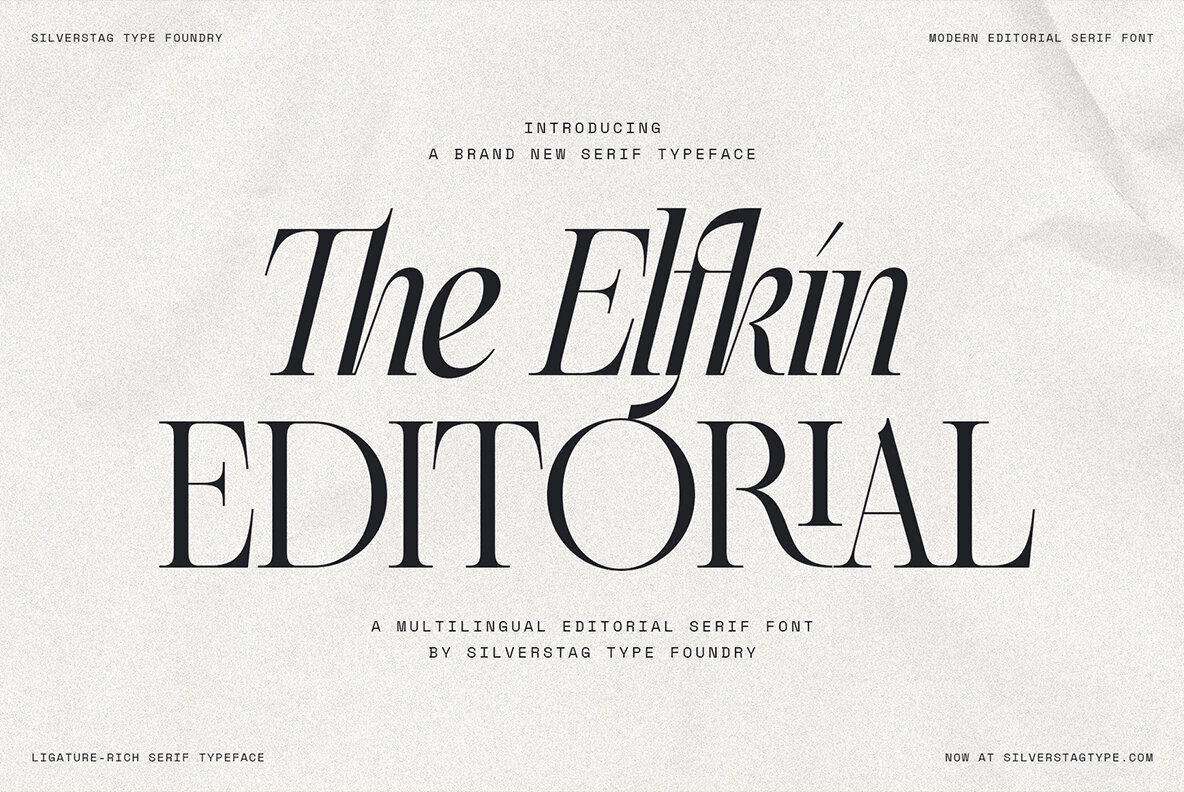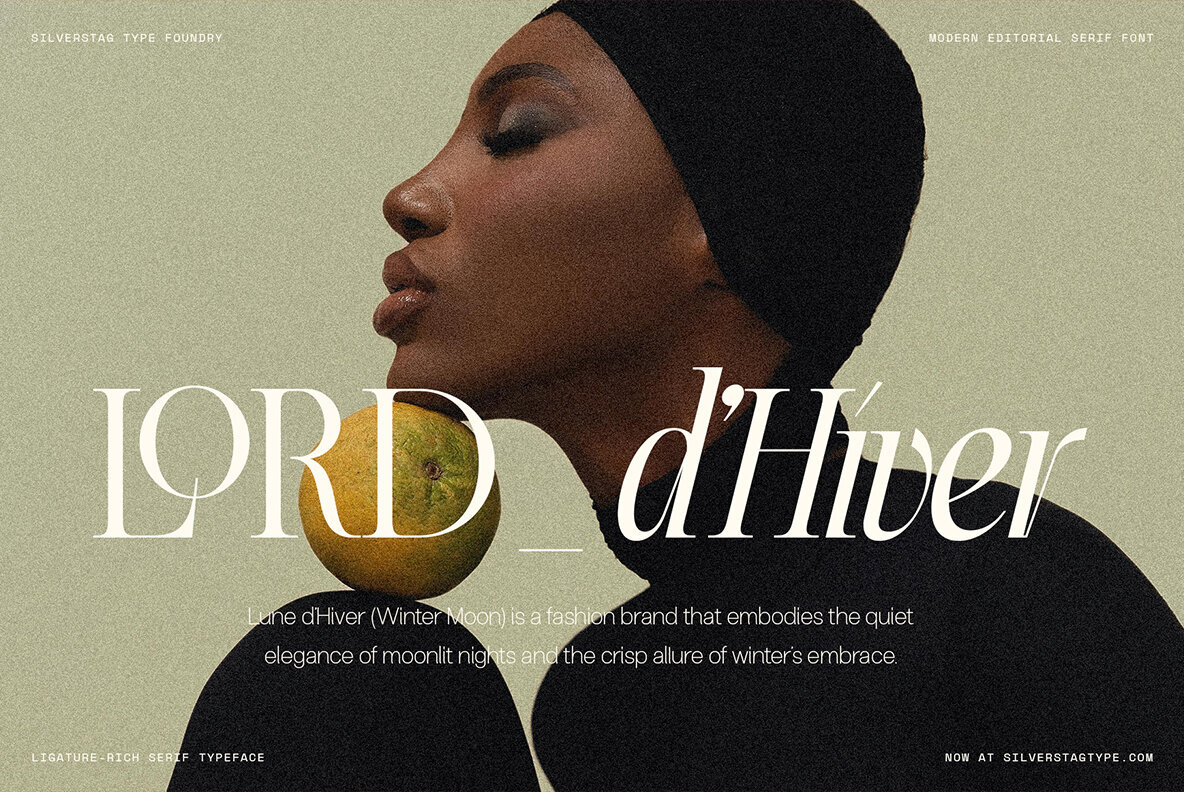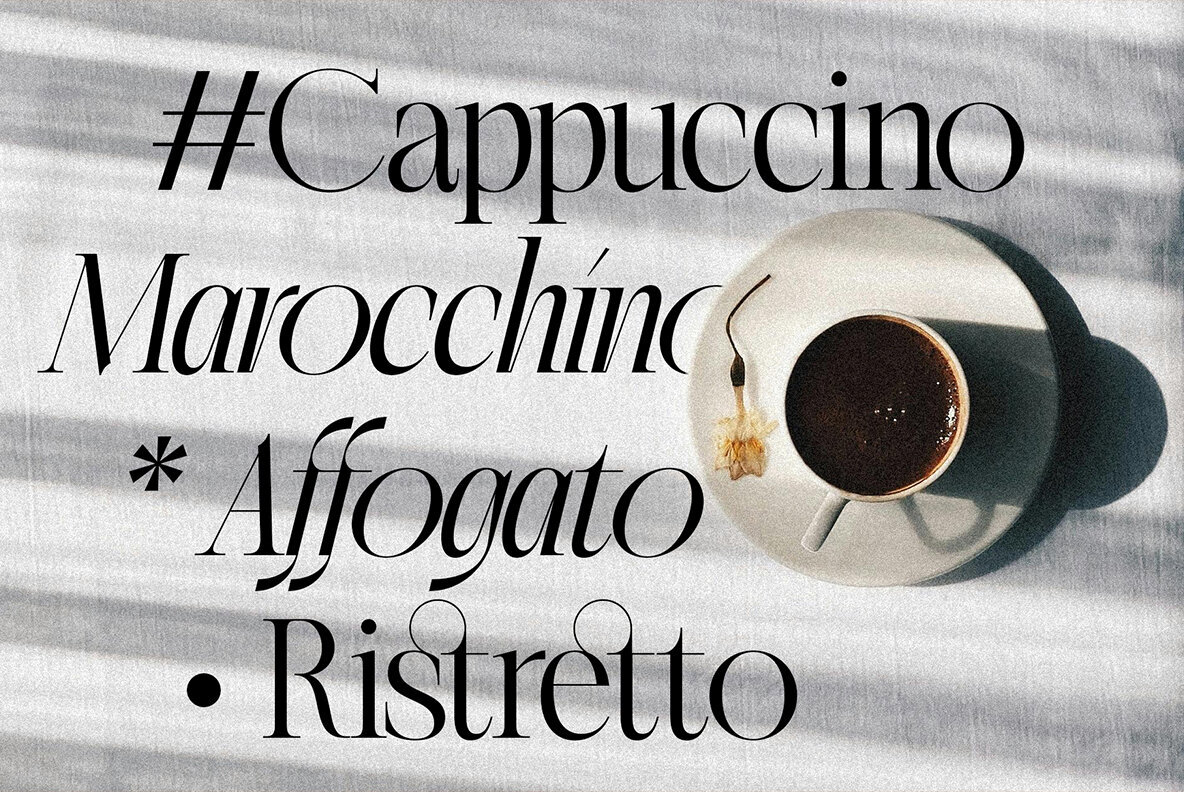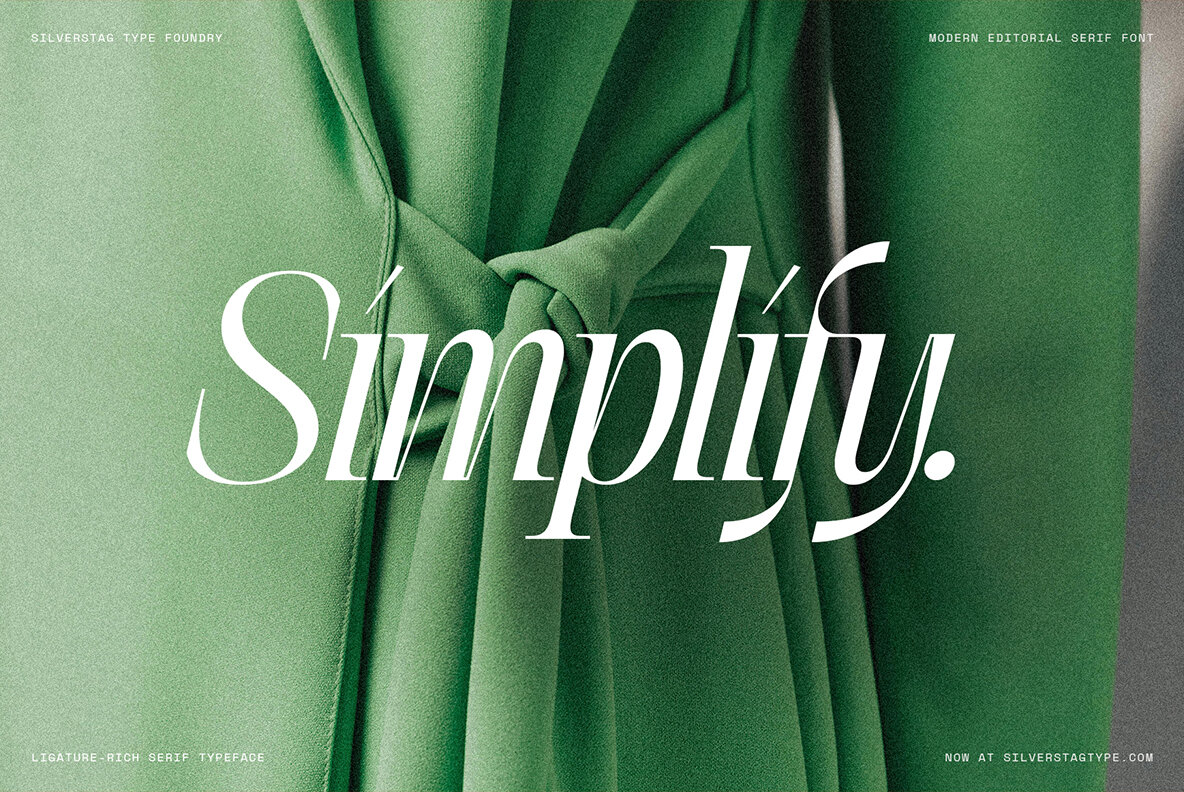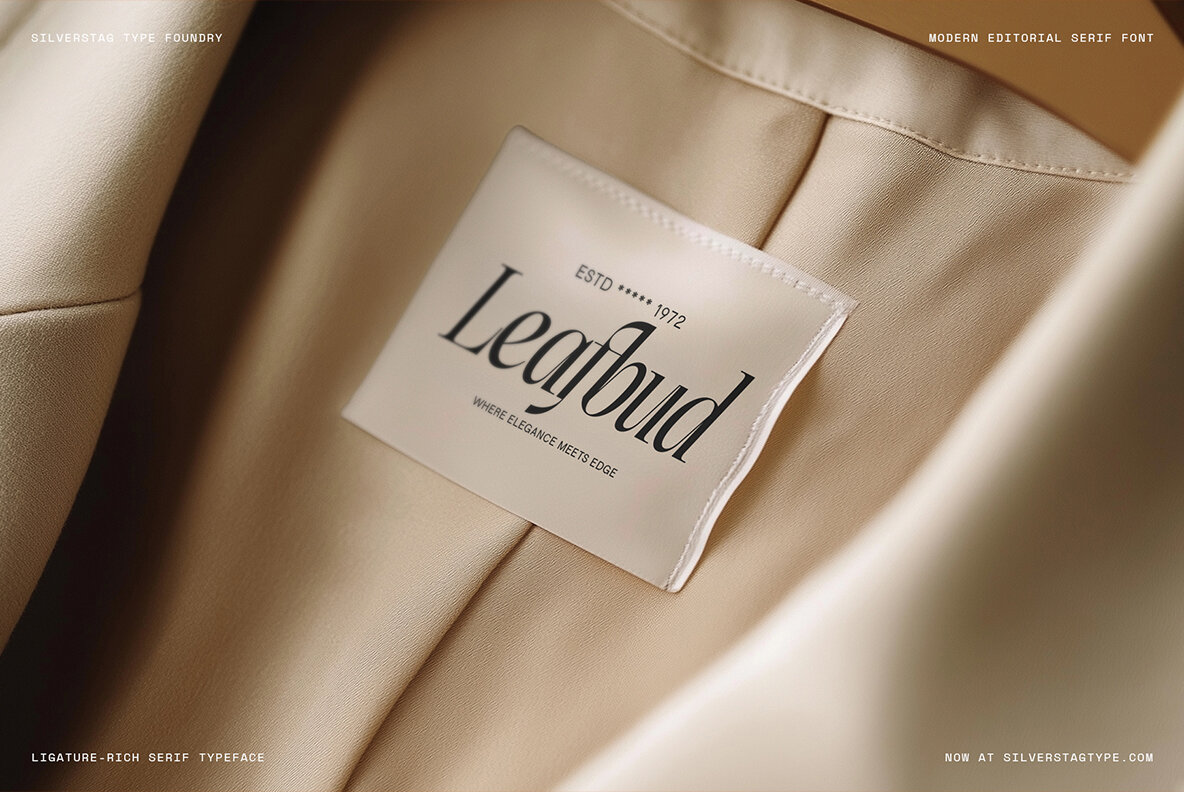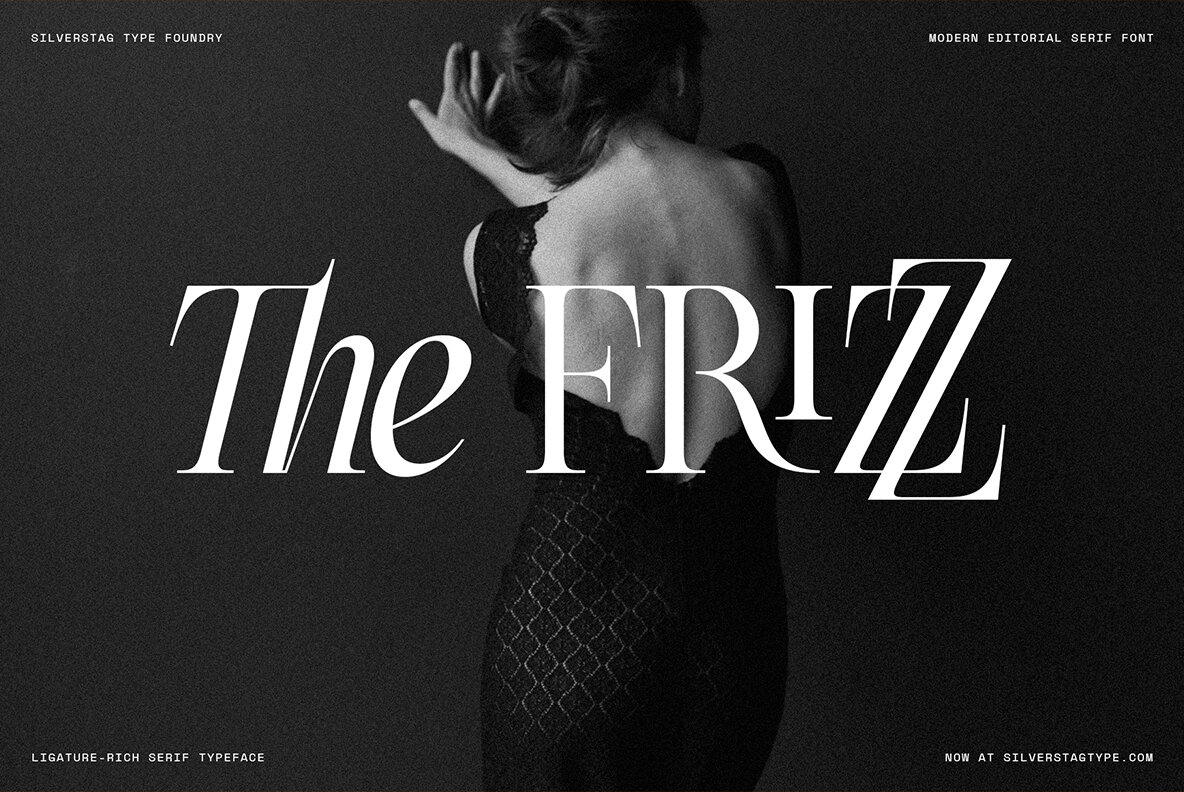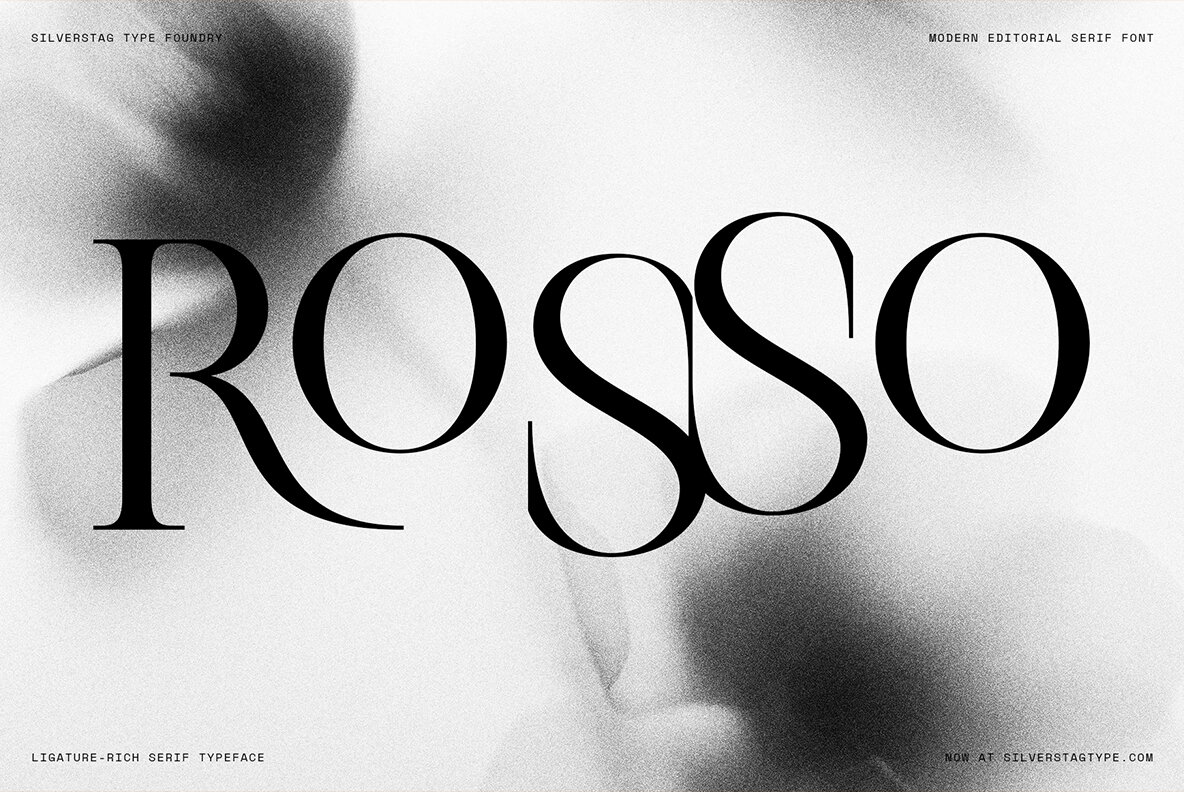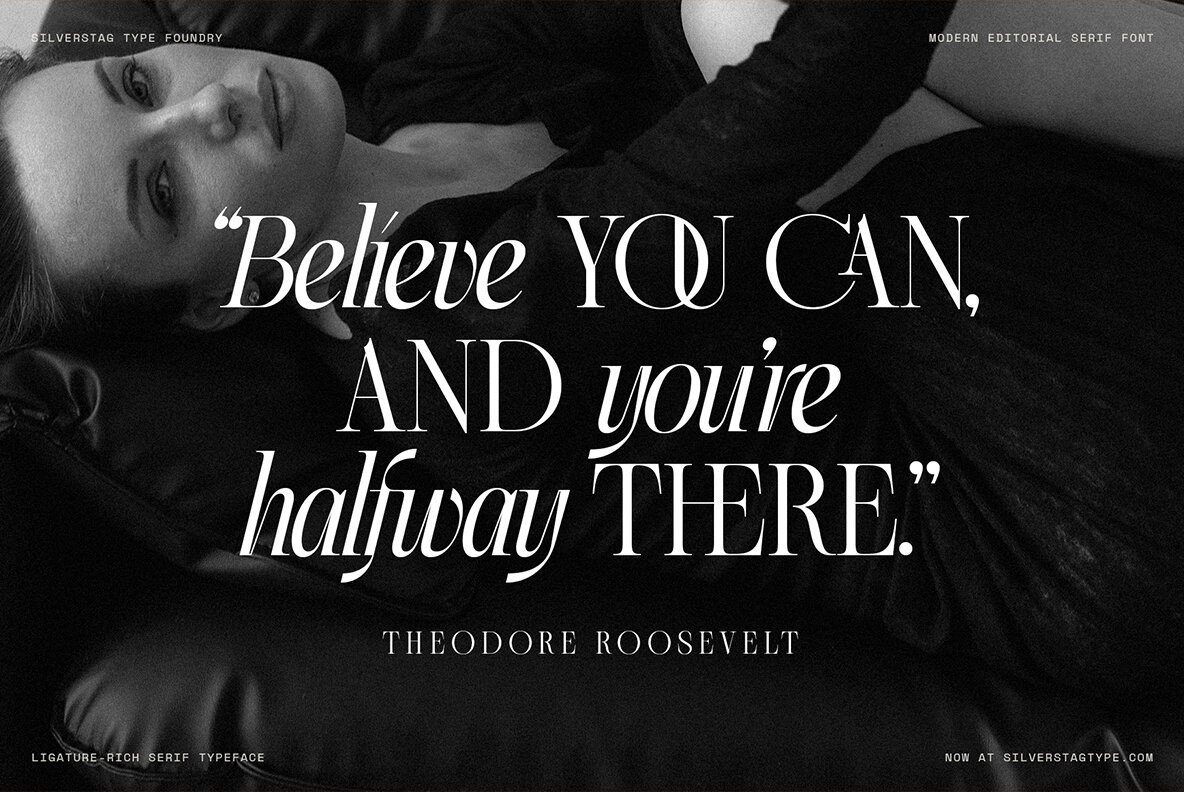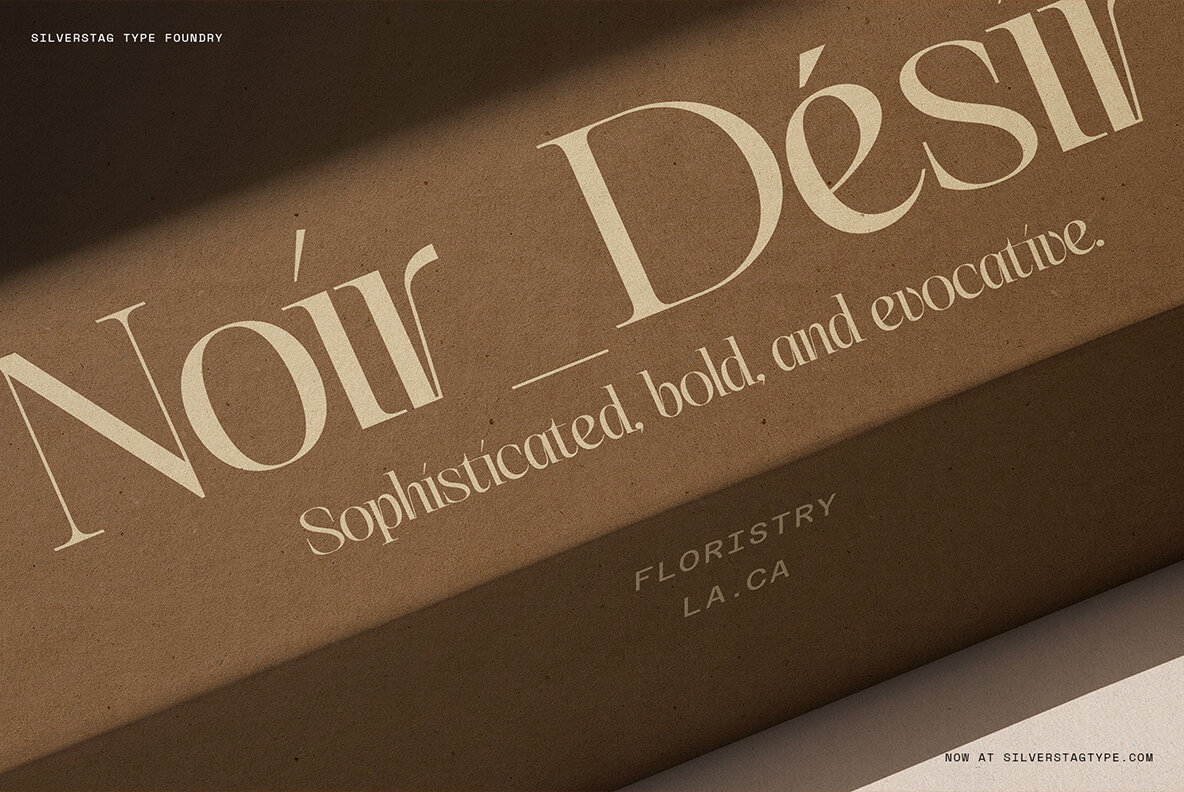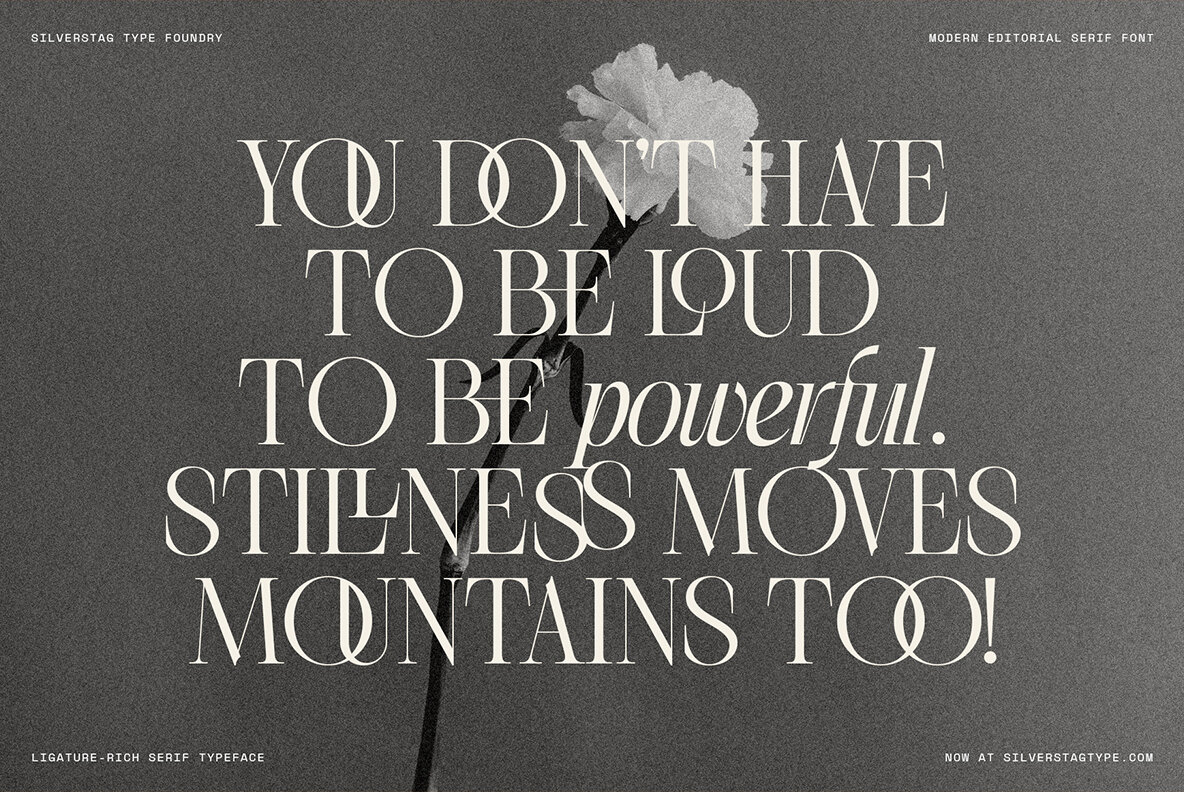
SLTF The Elfkin Editorial Font
SLTF The Elfkin Editorial Regular
SLTF The Elfkin Editorial Italic
Enhance your projects with SLTF The Elfkin Editorial, a refined serif font adeptly crafted for editorial design, branding, and creative layouts. Its elegant structure and expressive italic offer personality and a touch of drama, making it an essential choice for diverse typography work. Beyond its aesthetics, this typeface is rich in functionality. The Elfkin includes over 80 alternate characters and ligatures, allowing effortless refinement of your headlines, logos, and long-form content. Suitable for magazine design, book layouts, personal branding, and social media graphics, it combines timeless elegance with modern flair. Features: The Elfkin's standout feature is its italic version, characterized by its lively and emotive forms, ideal for adding emphasis while maintaining clarity. Thoughtfully drawn letterforms ensure strong rhythm and balance, even in tight settings or at large sizes. This typeface seamlessly supports over 100 languages and comes with comprehensive punctuation. Perfect for designers seeking a polished, adaptable typeface filled with character, SLTF The Elfkin Editorial brings storytelling, elegance, and sophistication to both print and digital spaces.SLTF The Elfkin Editorial: Refined Serif for Timeless Design